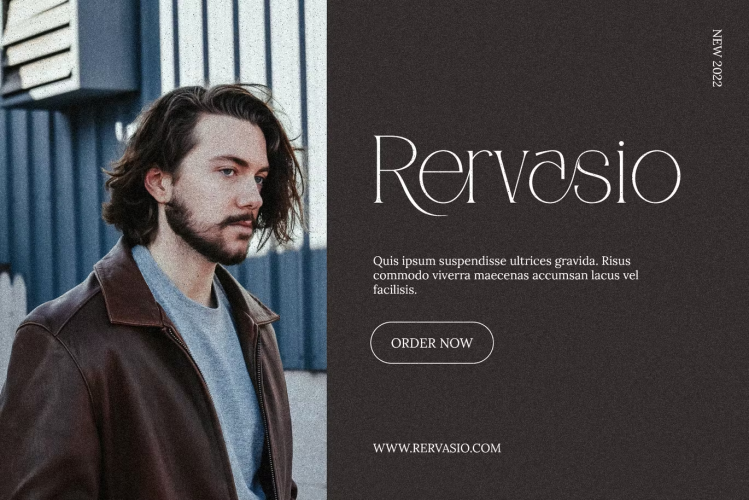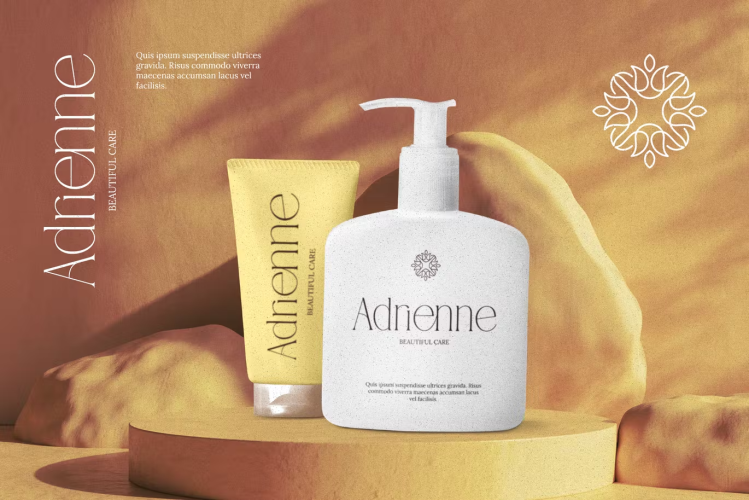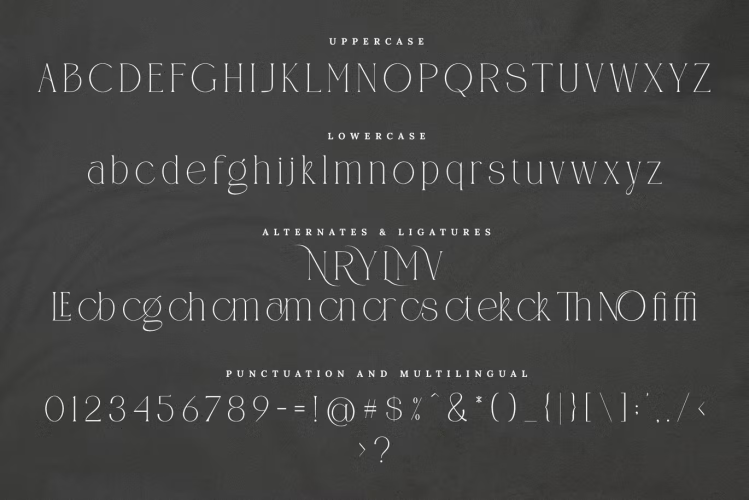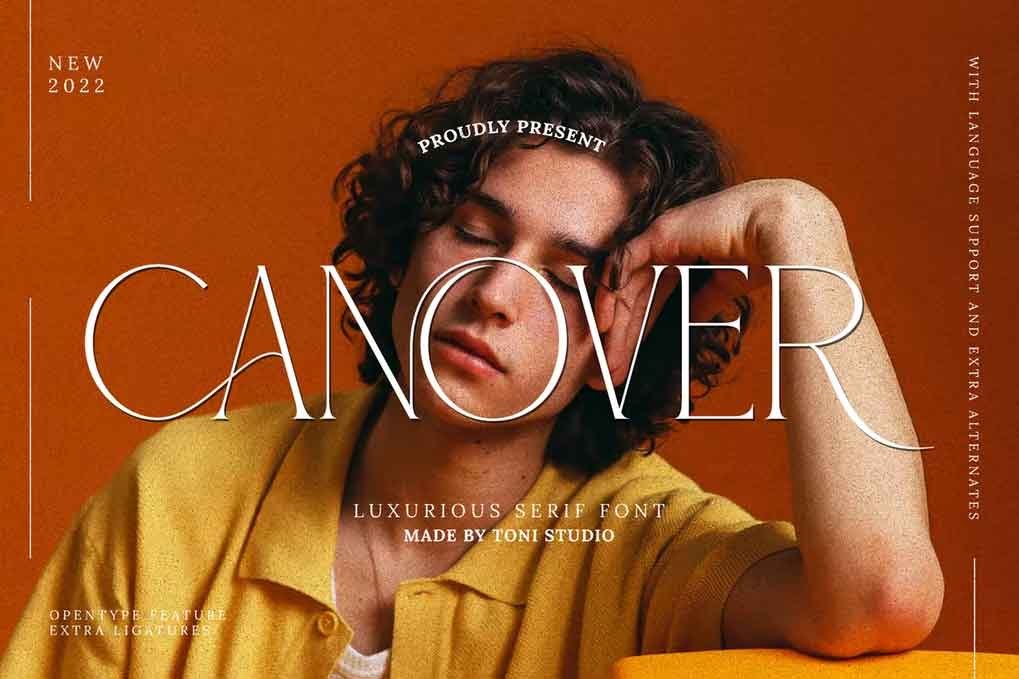
CANOVER Ligature Font
CANOVER is a Modern Ligature Serif Font. Its soft curves mix with high-contrast glyphs, giving it both a feminine and masculine quality. Inspired by magazine ads from th…
CANOVER is a Modern Ligature Serif Font. Its soft curves mix with high-contrast glyphs, giving it both a feminine and masculine quality. Inspired by magazine ads from the ’70s and ’80s – this family fits in with bringing retro back into the 21st century. Great in layout design for citations or body copy, best used as a display for titles, logos, brands, magazines, product packaging, and invitations.
Where CANOVER Ligature Font works best
CANOVER Ligature Font gives long-form text a classic, trustworthy rhythm — ideal for magazine spreads, annual reports and book interiors.
Pair CANOVER Ligature Font with generous letter-spacing for wordmarks in fashion, hospitality, wine and jewellery branding.
Use CANOVER Ligature Font for slide titles in Keynote, PowerPoint or Google Slides to add authority without looking dated.
What is CANOVER Ligature Font good for?